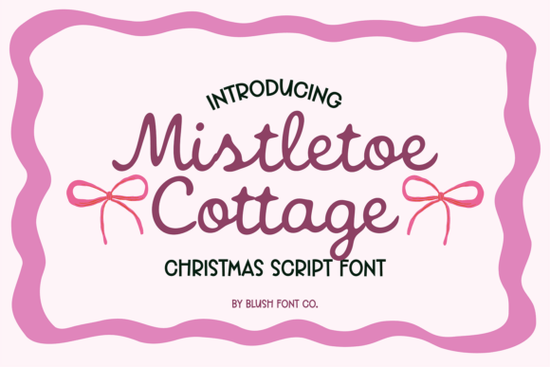
If you're looking for a script font that feels like a warm hug from your grandmother’s holiday kitchen, Mistletoe Cottage Font might be exactly what your seasonal designs need. This handwritten cursive typeface blends vintage charm with cozy Christmas nostalgia perfect for greeting cards, gift tags, mugs, or even small-batch holiday branding. Unlike generic holiday fonts that lean heavily on snowflakes or candy canes, Mistletoe Cottage captures the quiet magic of candlelight, handmade ornaments, and handwritten notes tucked under the tree.
What sets it apart isn’t just its soft, flowing letterforms it’s the thoughtful extras built right in. Each character feels personal, almost like it was penned with care on parchment paper. And yes, those sweet bow glyphs? They’re integrated directly into select letters, so you don’t need to layer graphics or fuss with alignment. Just type, and the festive detail appears naturally within the word.
Who is this font best suited for?
Mistletoe Cottage shines for creators who value authenticity over flashiness:
- Print-on-demand sellers designing holiday-themed T-shirts, tote bags, or mugs will appreciate how the font stands out without overwhelming the product.
- Small businesses crafting seasonal packaging, labels, or social media graphics can use it to convey warmth and tradition ideal for bakeries, candle makers, or local gift shops.
- Paper crafters and card makers will love how it mimics real handwriting, making each card feel one-of-a-kind.
- Digital designers building holiday templates (think Canva or Etsy digital downloads) can offer customers a font that feels both festive and timeless.
If you enjoy fonts with personality like those found in our collections of sweet casual scripts or authentic handwriting styles Mistletoe Cottage fits right in. It’s not overly ornate like some formal calligraphy fonts, nor too rigid like geometric scripts. Instead, it strikes that rare balance: elegant but approachable, nostalgic but fresh.
How does it compare to other holiday fonts?
Many Christmas fonts rely on obvious symbols reindeer, holly, or chunky block letters that scream “seasonal.” Mistletoe Cottage takes a subtler route. Its charm comes from rhythm and texture, not gimmicks. The slight irregularities in stroke width and gentle slant mimic real pen-on-paper movement, which helps avoid that “computer-generated” feel.
For contrast, consider something like the Shake Font, which has playful bounce, or the Thickloved Duo, known for bold romantic pairings. Mistletoe Cottage doesn’t compete with those it complements them by offering a quieter, more intimate voice. Think of it as the font equivalent of a wool blanket by the fire versus a glittery party hat.
And if you’ve used wedding script fonts before like those in our whimsical wedding collection you’ll recognize the same attention to ligatures and flow. But here, the mood shifts from celebration to comfort, from spring blossoms to pine boughs and cinnamon sticks.
Practical uses beyond greeting cards
While holiday cards are an obvious fit, don’t stop there. Try Mistletoe Cottage for:
- Custom gift tags with names handwritten in script
- Recipe cards for family-favorite holiday treats
- Branding for a limited-edition winter product line
- Instagram story quotes paired with soft, snowy backgrounds
- Embroidery digitizing for cozy throw pillows or aprons
- Pair it wisely use a clean sans-serif (like Montserrat or Lato) for supporting text so the script remains the star.
- Test print sizes delicate scripts can lose detail when scaled too small; aim for at least 18pt for readability on physical goods.
- Play with color deep reds, forest greens, or creamy off-whites enhance its vintage holiday vibe better than bright neons.
If your goal is to create designs that feel heartfelt not hurried Mistletoe Cottage offers the kind of quiet charm that lingers long after the holidays end.